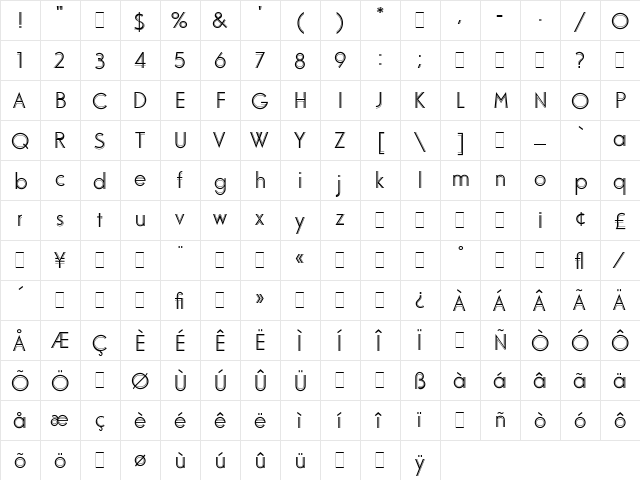
Odessa LET Regular
Design Context for Odessa LET Typeface
Odessa LET offers clean, dependable letterforms without strong stylistic allegiance, making it a practical choice for designers who need flexibility.